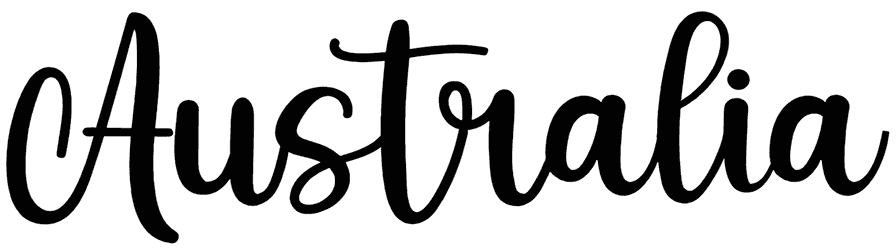
Australia Font
Australia rewards designers who have waited this long to find the best calligraphy font and want to find something to stand out.
This travel font can instantly shake the heart of any viewer who loves beauty and stays in their mind. So if you want to invite guests to your wedding party with pure human emotions or present your products in excellent packaging, do not ignore this font.